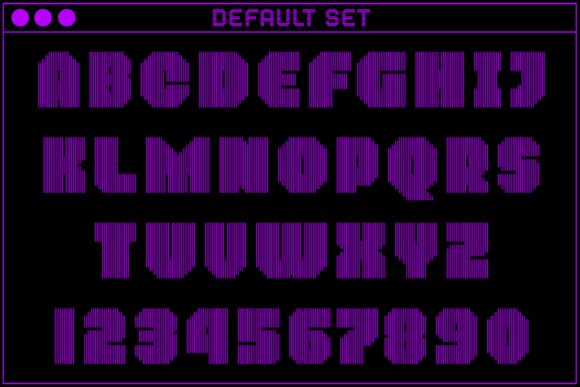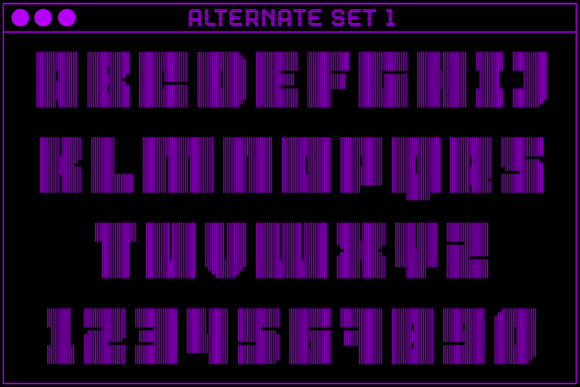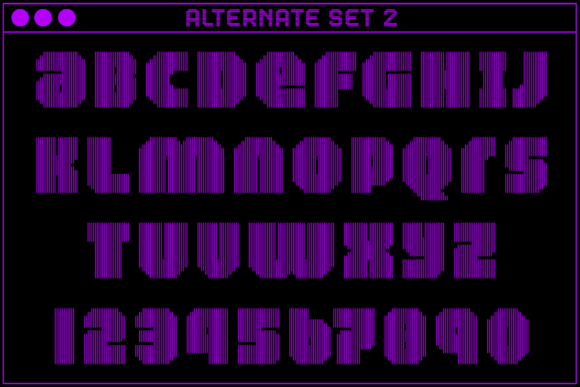
Introduction to MultiType Lines Regular Bold 2 Font
MultiType Lines Regular Bold 2 is a cool, uniquely shaped, pixelated decorative font.
Add a distorted and trendy touch to your designs with this very unusual pixel font MultiType Lines Regular Bold 2 is PUA encoded, which means you can access all glyphs and swashes with ease.
Key Features of MultiType Lines Regular Bold 2 Font